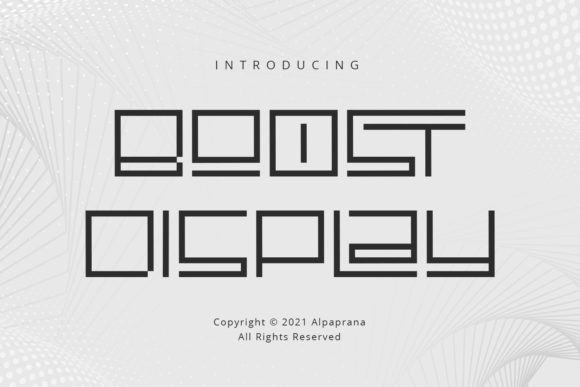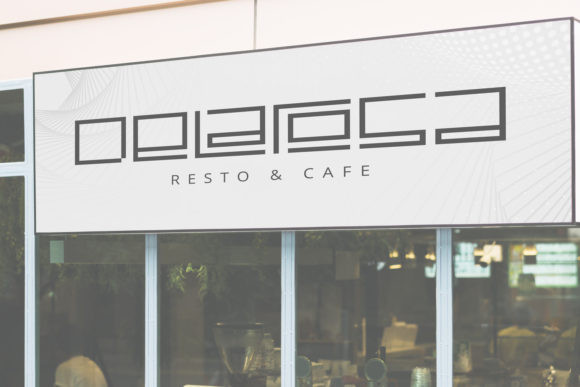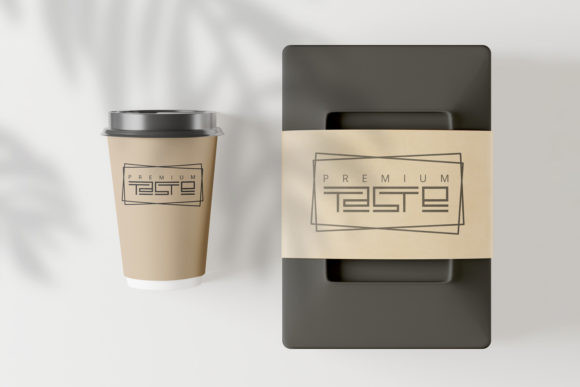
Boost Display Font
Boost Display FontBoost Display is a cool or futuristic display font. It can be used for a variety of modern or minimalistic design ideas. It will also look stunning on any poster flyer or print.